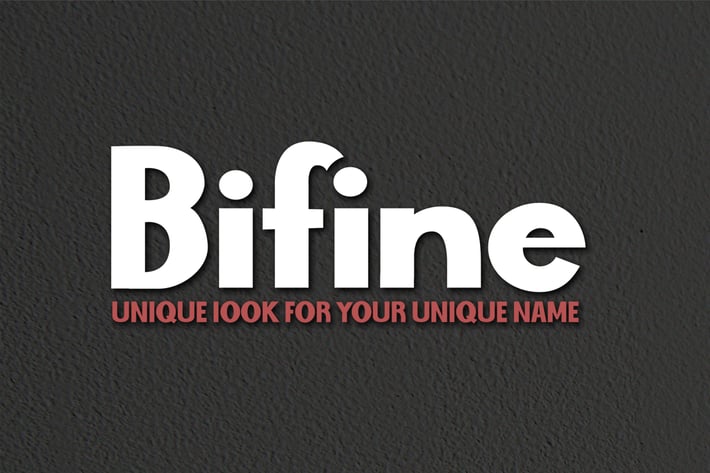
Bifine - Sans Serif Font
Introducing Bifine, a simple casual sans serif font.
So perfect for you who needs a typeface for logo designs, magazine, social media, brochure, and many more.
+ Uppercase
+ Lowercase
+ Numerals
+ Punctuation